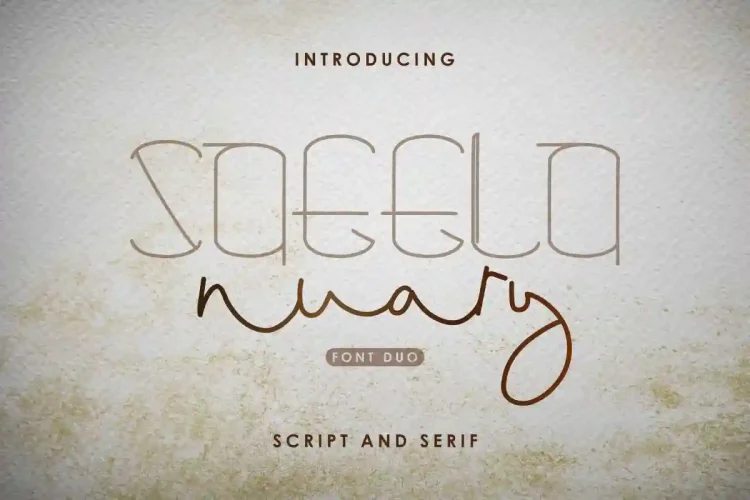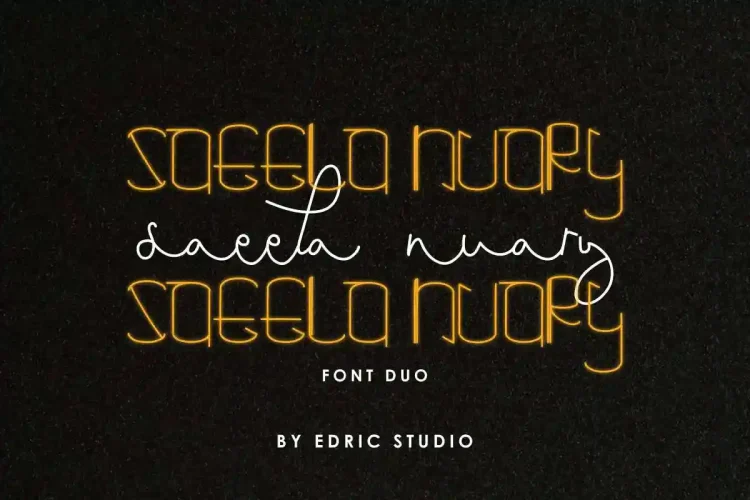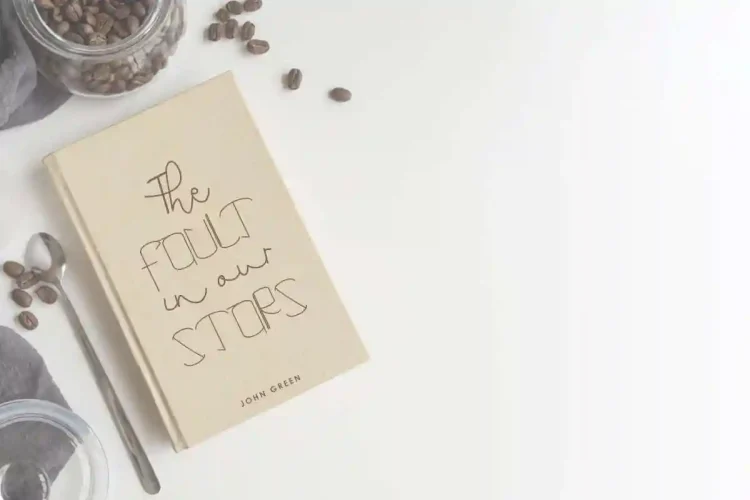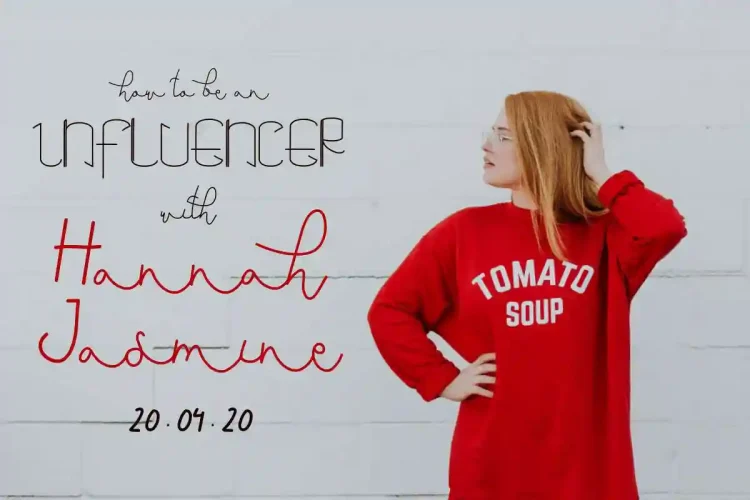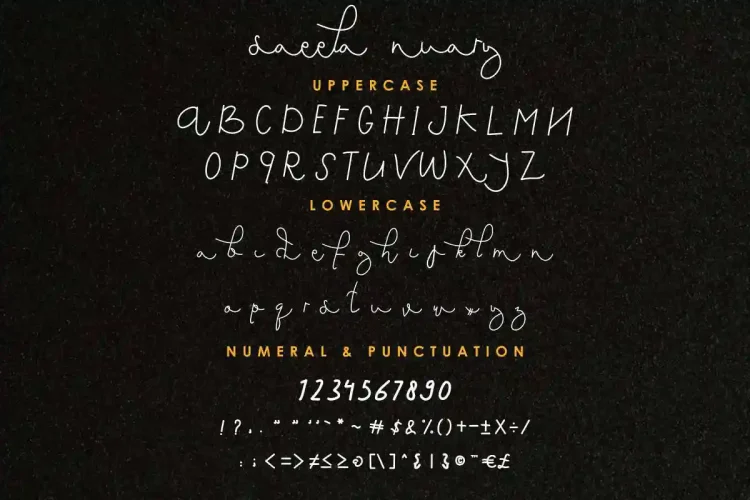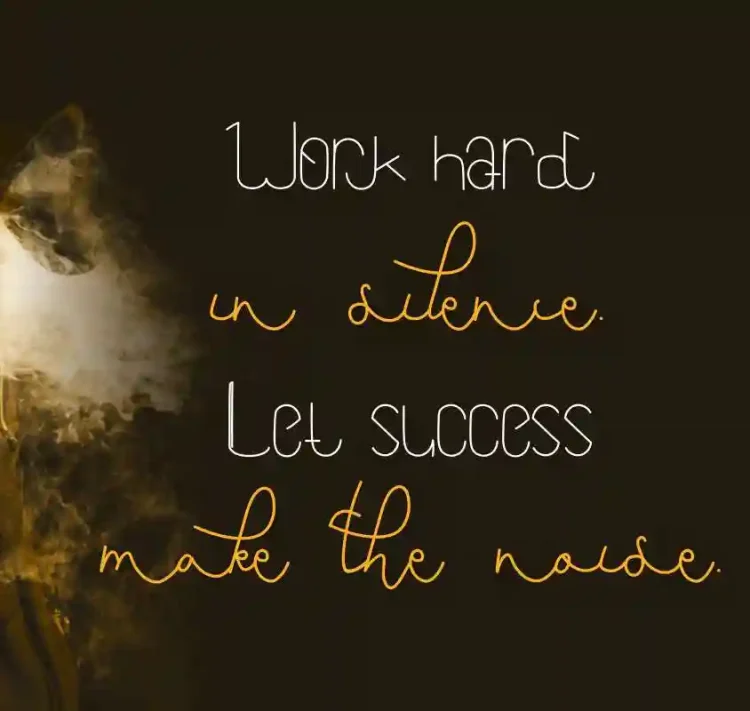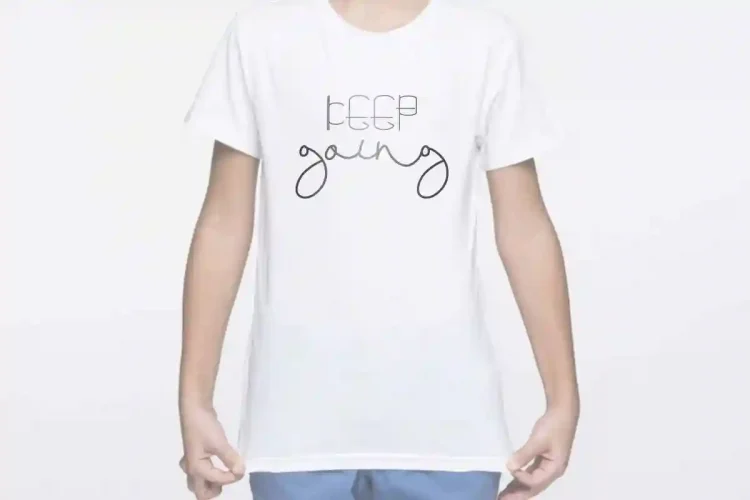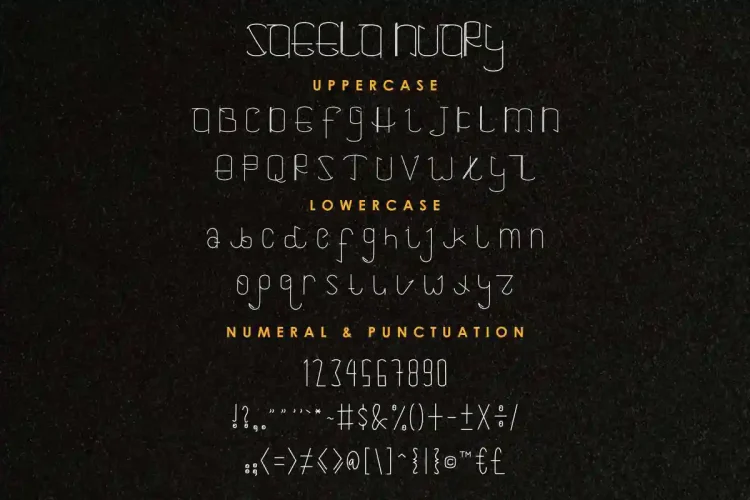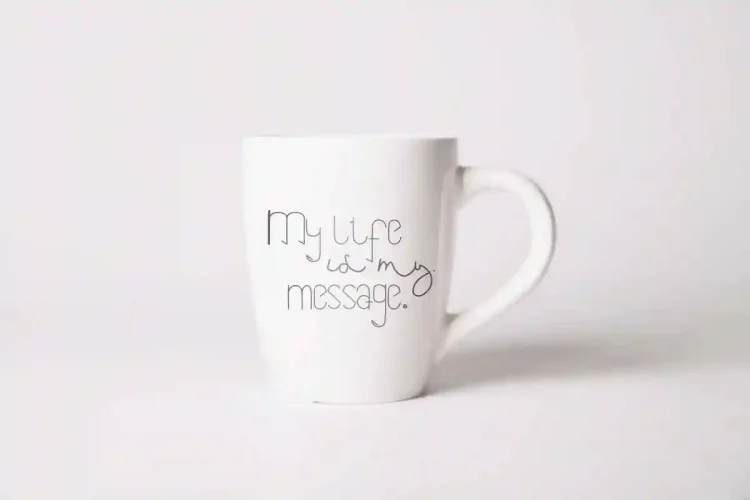
Saeela Nuary Font Duo Serif
Edric Studio Present to you : Saeela Nuary Font Duo
This is a Font Duo with Serif and Script Style, made in Bandung and Garut-Indonesia.
Perfect for branding, logos, invitations, packaging, social media posts, and editorial designs, Saeela Nuary Font Duo brings a harmonious balance between sophistication and readability. The script font offers smooth, flowing strokes for a touch of luxury, while the serif font delivers classic structure and clarity.